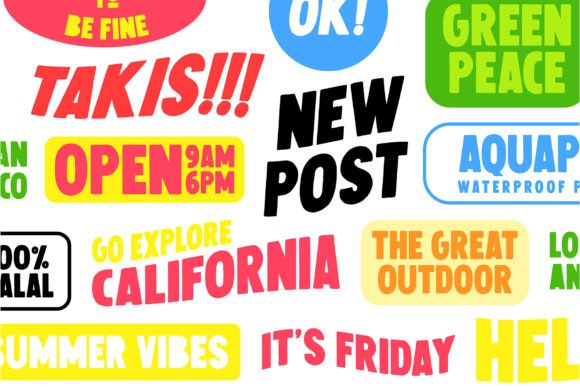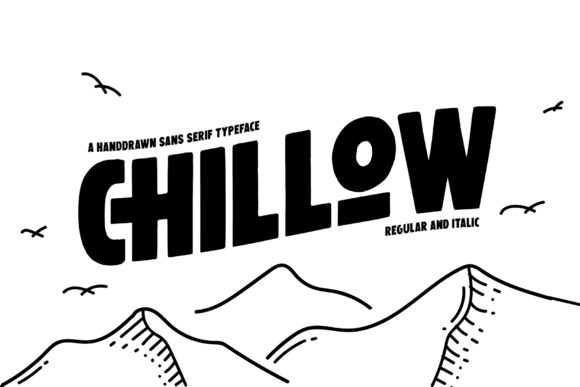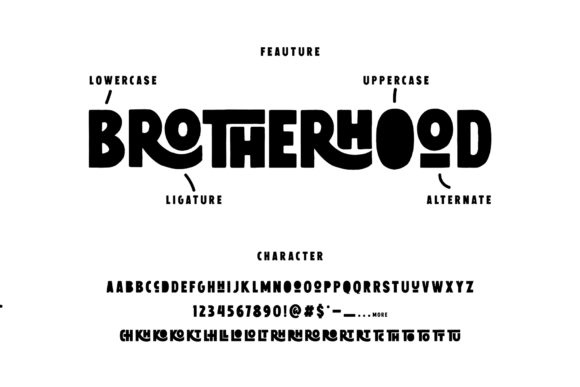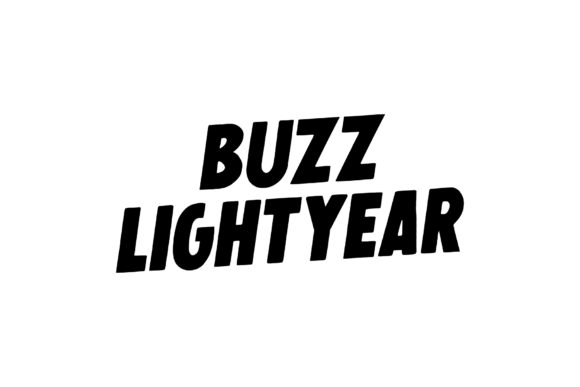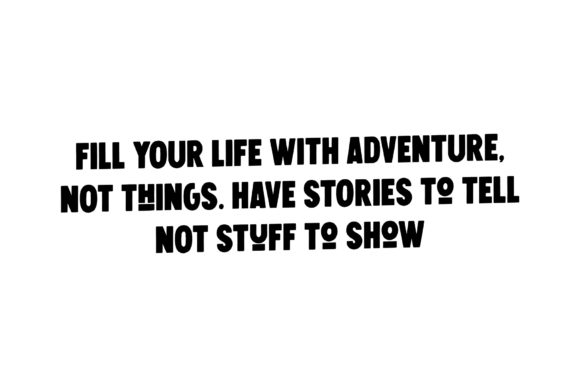
Discover the Refreshing Charm of Chillow Font
Have you ever been stuck in a design rut, searching for the perfect font to breathe new life into your project? I know I have! It’s like hitting a creative wall, and nothing seems to spark inspiration. But then, one day, I stumbled upon Chillow Font – and everything changed.
Chillow Font is a vibrant and playful sans serif font that’s designed to add a touch of whimsy to any design. Whether you’re working on a logo, social media graphics, or a branding campaign, this font is sure to captivate your audience. Its unique style is perfect for designers who want to add a bit of personality to their work.
For designers, Chillow Font is a valuable asset in their toolkit. Its versatility and charm make it an excellent choice for a wide range of projects, from casual to formal designs. So, get ready to unleash your creativity with Chillow Font and take your designs to the next level!
Chillow Font Key Features
- Font Family: Chillow is a sans-serif font family.
- Unique Characteristics: Features a clean and modern design, with a distinctive rounded edge and a high x-height, making it ideal for digital applications and body text.
Chillow Font Review
I recently had the chance to work with the Chillow Font, and I have to say it’s a solid addition to any designer’s toolkit. Here’s what I like about it: ✨
- Unique aesthetic: The Chillow Font has a distinct, laid-back vibe that’s perfect for projects where you want to convey a sense of relaxation and ease.
- High legibility: The font is clear and easy to read, even at smaller sizes, making it a great choice for body text or headlines.
- Customizable: The Chillow Font comes with a range of styles and weights, giving you the flexibility to tailor it to your specific design needs.
- Not ideal for formal or professional projects: The Chillow Font’s casual vibe may not be the best fit for projects that require a more formal or corporate tone.
- Limited language support: The font may not support all languages or character sets, which could be a problem for international projects.
Overall, I think the Chillow Font is a great choice for designers who want to add some personality to their projects without sacrificing readability or flexibility. With its unique aesthetic and high legibility, it’s definitely worth considering for your next design project.
Tips: Use the Chillow Font for creative and playful designs, such as invitations, social media graphics, and blog posts.
Tips: Use the Chillow Font for creative and playful designs, such as logos, posters, and infographics.
Tips: Use the Chillow Font for creative and playful presentations, such as slides and reports.
The Chillow Font is ideal for creative and playful designs, such as:
1. Invitations and social media graphics.
2. Logos and posters.
3. Infographics and reports.
4. Blog posts and articles.
Alternatives to Chillow Font for Designers
Great Vibes is a beautiful, modern script font that works well for titles, headings, and other design elements that require a touch of elegance. It’s perfect for creating a luxurious and sophisticated atmosphere. Compared to Chillow Font, Great Vibes has a more refined and polished look, making it ideal for high-end branding and advertising.
Pacifico is a stylish and elegant script font that’s great for creating a relaxed and beachy vibe. It’s perfect for branding and advertising related to travel, leisure, and lifestyle. Compared to Chillow Font, Pacifico has a more laid-back and casual feel, making it ideal for designs that require a sense of ease and approachability.
Playfair Display is a luxurious and elegant serif font that’s perfect for creating high-end branding and advertising. It’s ideal for titles, headings, and other design elements that require a touch of sophistication and refinement. Compared to Chillow Font, Playfair Display has a more formal and classic look, making it ideal for designs that require a sense of tradition and heritage.
Carolyna Pro is a modern and elegant script font that’s great for creating a luxurious and sophisticated atmosphere. It’s perfect for branding and advertising related to high-end fashion, luxury goods, and premium services. Compared to Chillow Font, Carolyna Pro has a more refined and polished look, making it ideal for designs that require a sense of elegance and refinement.